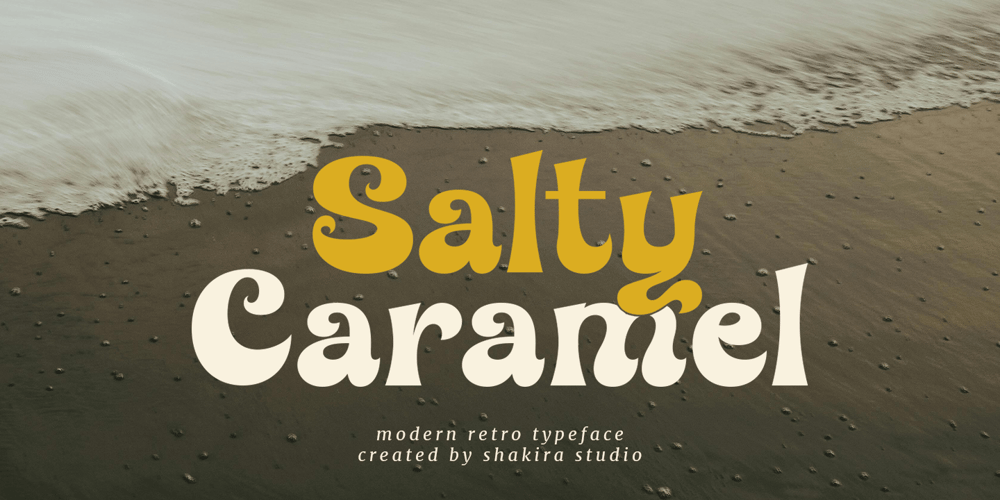
Salty Caramel Font Family was designed by Idhham Cholid Rikzano Yahya and published by Shakira Studio. Salty Caramel contains 2 styles and family package options. Introducing Salty Caramel – The Quintessential Modern Retro Font with Unique Characters!Salty Caramel is not just a font; it’s a delicious blend of modern aesthetics and retro charm. Perfectly capturing the essence of #ModernRetro and #TypographyTrends, Salty Caramel is designed to elevate your creative projects.This font boasts unique characters, complemented by stylish alternates and elegant ligatures, making it a versatile choice for any design need. Whether you’re crafting logos, branding materials, or social media graphics, Salty Caramel adds a distinctive touch that stands out.Join the trend towards sophisticated and eye-catching typography with Salty Caramel. Let your designs shine with its unique charm and modern retro appeal! #SaltyCaramelFont #UniqueTypography #DesignInnovationHere’s what you get: Regular & Italic All Multilingual symbol Opentype features ( ligature, alternate ) Accessible in the Adobe Illustrator, Adobe Photoshop, Adobe InDesign, even work on Microsoft Word. PUA Encoded Characters – Fully accessible without additional design software. Multilingual character supports : (Afrikaans, Albanian, Catalan, Croatian, Czech, Danish, Dutch, English, Estonian, Finnish, French, German, Hungarian, Icelandic, Italian, Lithuanian, Maltese, Norwegian, Polish, Portuguese, Slovenian, Spanish, Swedish, Turkish, Zulu)Thank you!Shakira Studio